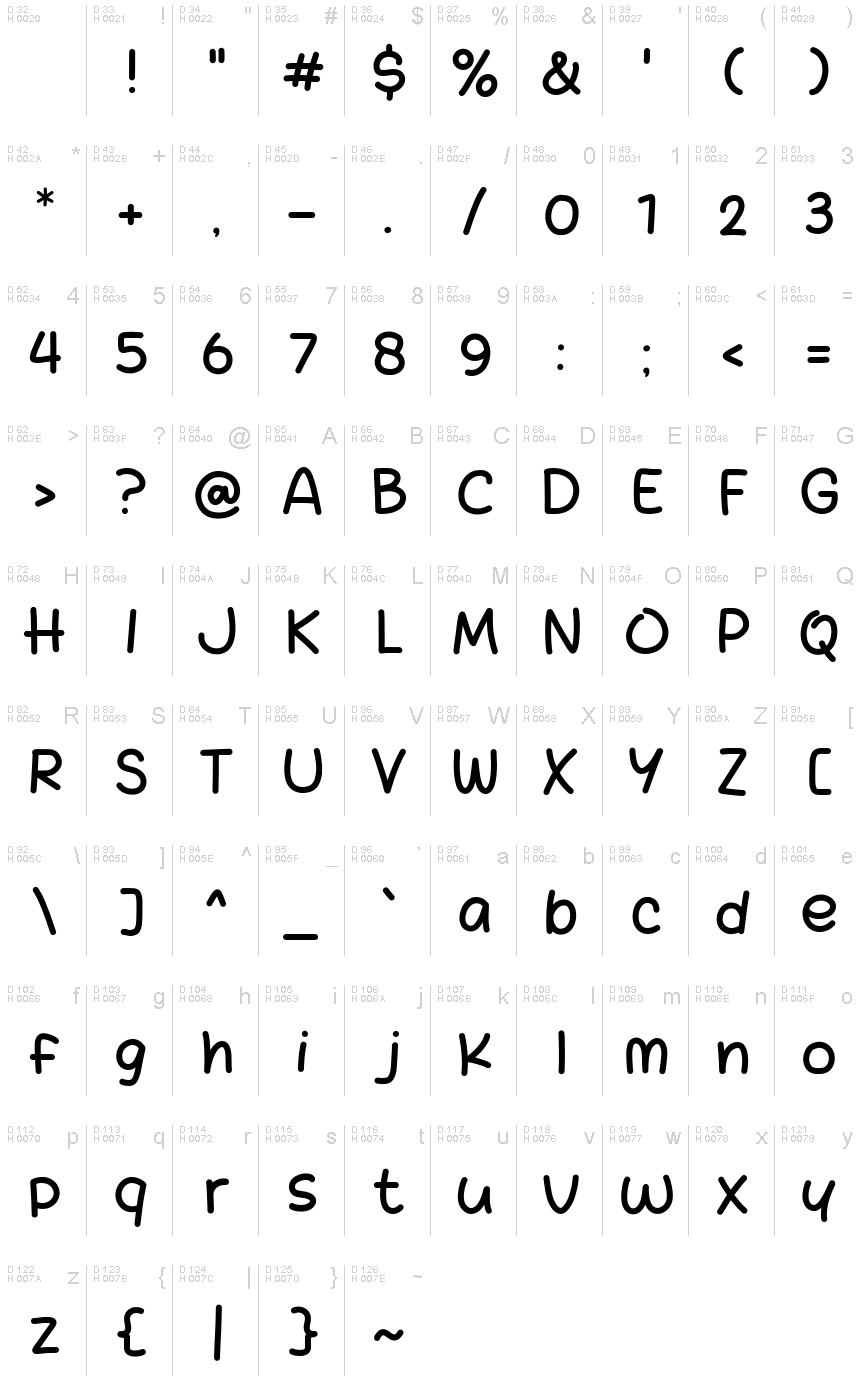
Okesip
Okesip is a captivating display font crafted by Khurasan. With its whimsical, cartoon-inspired aesthetic, this font exudes a playful and lighthearted charm. The organic, hand-drawn strokes and unique character shapes create a delightfully expressive and engaging visual experience.
The Okesip font's distinct personality lends itself well to a variety of creative applications, from children's books and educational materials to branding and packaging design. Its versatility allows it to seamlessly blend into both playful and imaginative projects, as well as those seeking a touch of nostalgic charm.